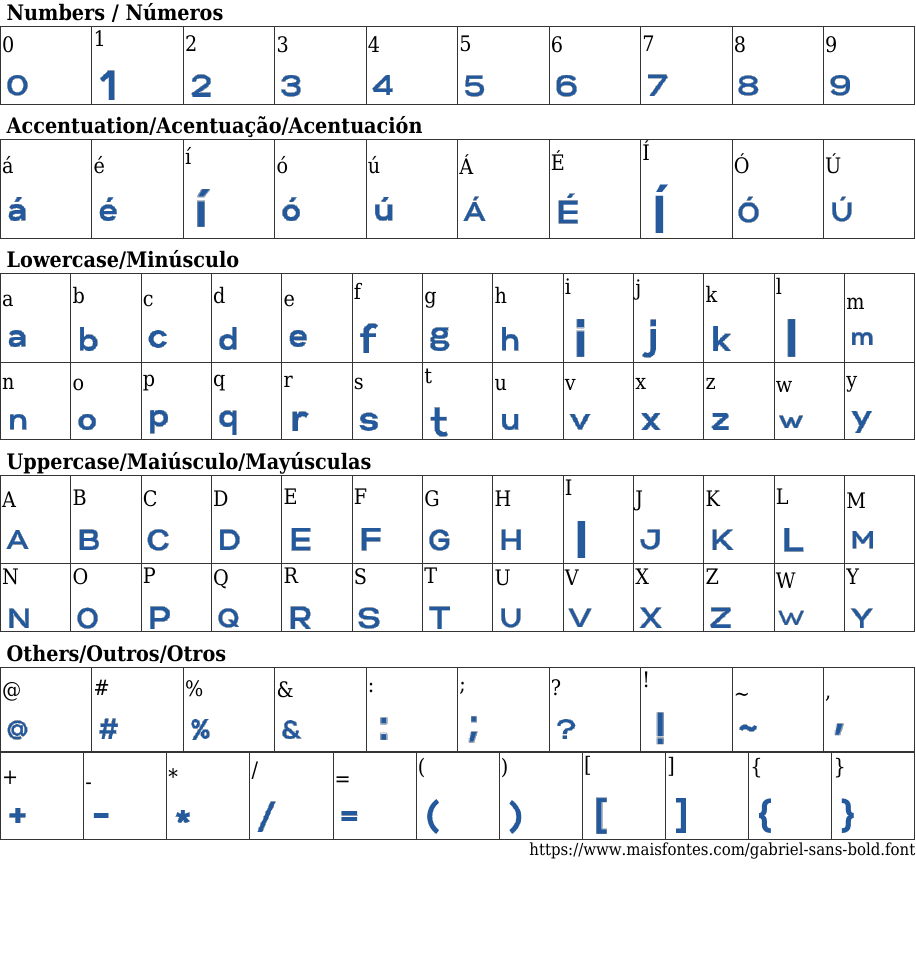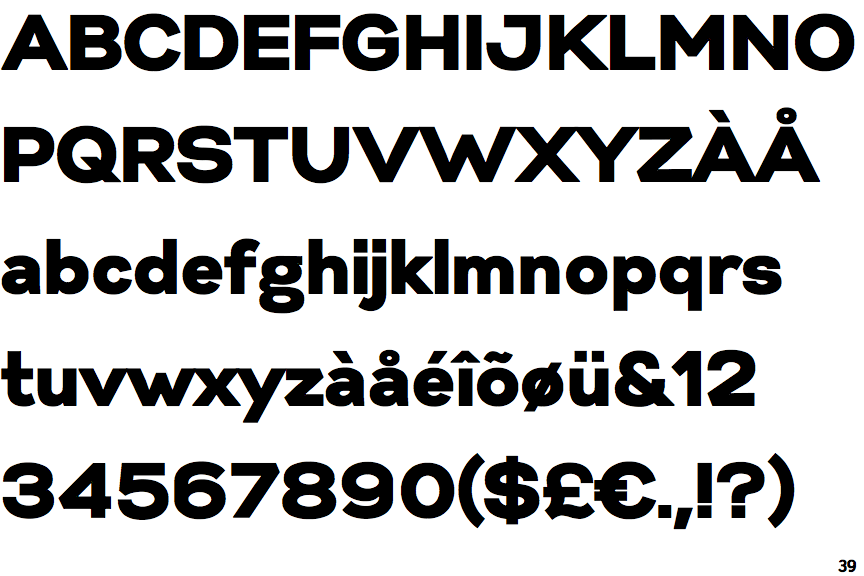
Gabriel Sans Font
Gabriel Sans Font - This is geometric sans font family inspired by modern and elegant font. It’s designed and shared by fontfabric. Gabriel sans is a font family inspired by the original sans serif fonts of the transitional age like futura and grotesk, but with a modern.
This is geometric sans font family inspired by modern and elegant font. Gabriel sans is a font family inspired by the original sans serif fonts of the transitional age like futura and grotesk, but with a modern. It’s designed and shared by fontfabric.
It’s designed and shared by fontfabric. This is geometric sans font family inspired by modern and elegant font. Gabriel sans is a font family inspired by the original sans serif fonts of the transitional age like futura and grotesk, but with a modern.
Gabriel sans is a font family inspired by the original sans serif fonts of the transitional age like futura and grotesk, but with a modern. This is geometric sans font family inspired by modern and elegant font. It’s designed and shared by fontfabric.
This is geometric sans font family inspired by modern and elegant font. Gabriel sans is a font family inspired by the original sans serif fonts of the transitional age like futura and grotesk, but with a modern. It’s designed and shared by fontfabric.
This is geometric sans font family inspired by modern and elegant font. It’s designed and shared by fontfabric. Gabriel sans is a font family inspired by the original sans serif fonts of the transitional age like futura and grotesk, but with a modern.
This is geometric sans font family inspired by modern and elegant font. Gabriel sans is a font family inspired by the original sans serif fonts of the transitional age like futura and grotesk, but with a modern. It’s designed and shared by fontfabric.
Gabriel sans is a font family inspired by the original sans serif fonts of the transitional age like futura and grotesk, but with a modern. It’s designed and shared by fontfabric. This is geometric sans font family inspired by modern and elegant font.
This is geometric sans font family inspired by modern and elegant font. Gabriel sans is a font family inspired by the original sans serif fonts of the transitional age like futura and grotesk, but with a modern. It’s designed and shared by fontfabric.
It’s designed and shared by fontfabric. This is geometric sans font family inspired by modern and elegant font. Gabriel sans is a font family inspired by the original sans serif fonts of the transitional age like futura and grotesk, but with a modern.
This is geometric sans font family inspired by modern and elegant font. Gabriel sans is a font family inspired by the original sans serif fonts of the transitional age like futura and grotesk, but with a modern. It’s designed and shared by fontfabric.
It’s Designed And Shared By Fontfabric.
Gabriel sans is a font family inspired by the original sans serif fonts of the transitional age like futura and grotesk, but with a modern. This is geometric sans font family inspired by modern and elegant font.